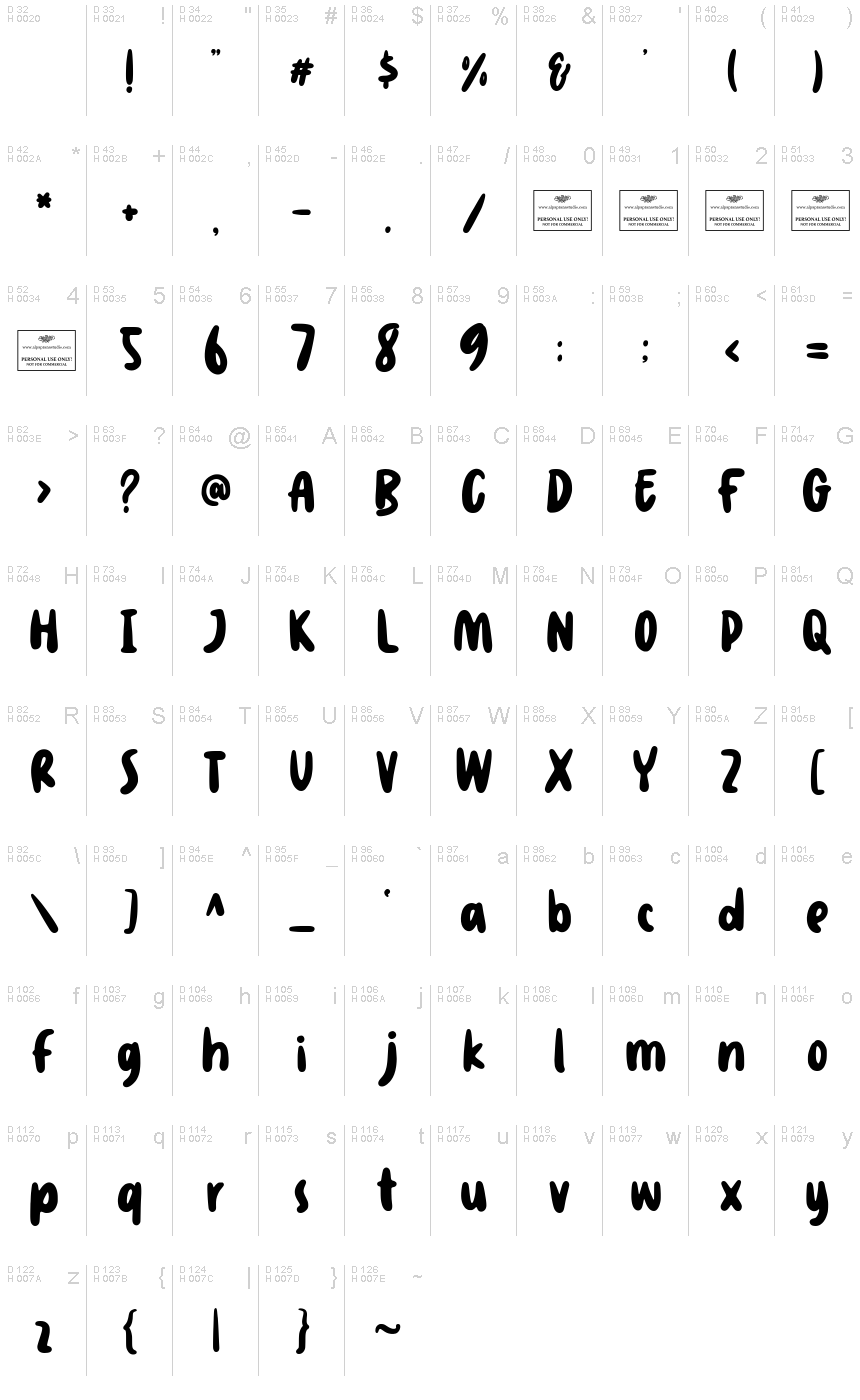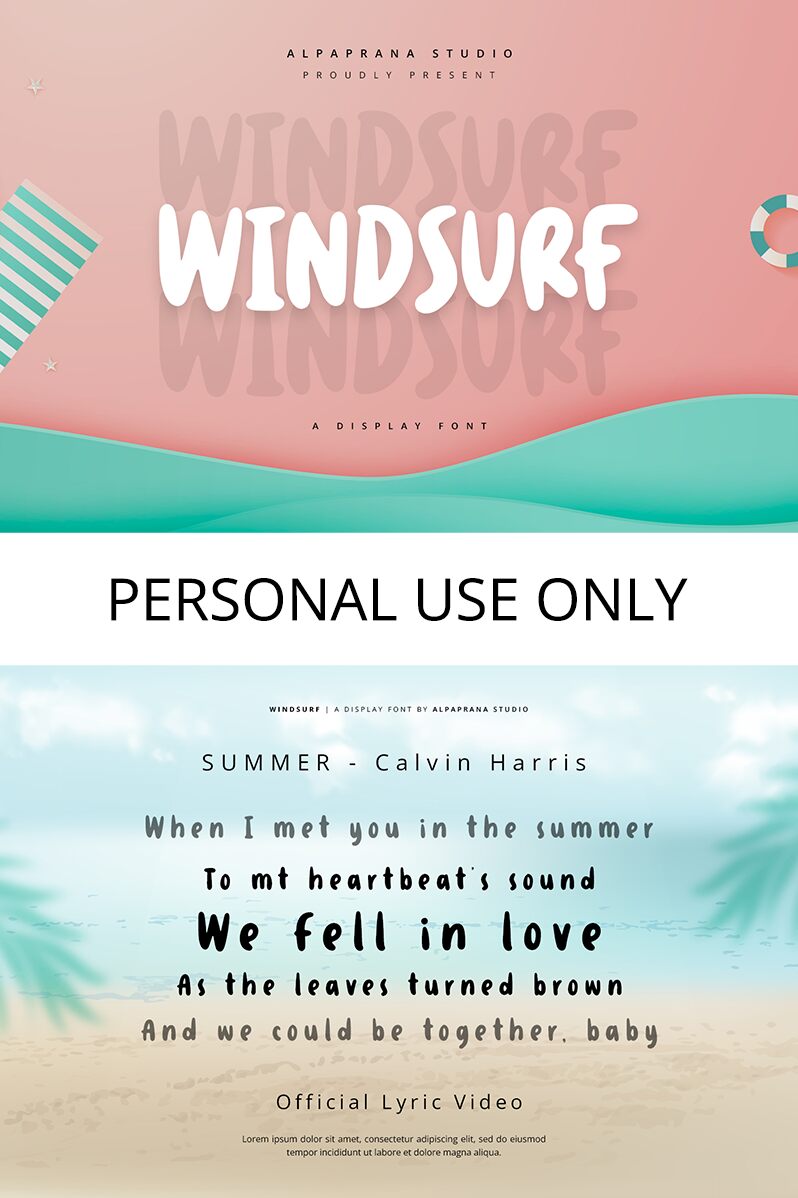
Windsurf
Windsurf by Alpaprana Studio is a playful display font that exudes a cartoonish charm with its bold and friendly letterforms. Its condensed style gives it a dynamic energy, perfect for making a statement while conserving space. The whimsical twists of Windsurf add an element of fun and creativity to any project, making it ideal for titles, headers, and any design where personality is key.
From children's books to animated movie posters, or even branding for quirky products or services, Windsurf is versatile enough to bring life and character wherever it's used.